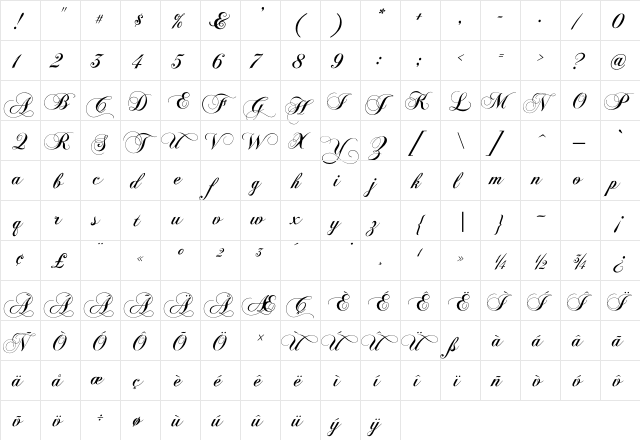
ChopinScript Medium
Design Context for ChopinScript Typeface
ChopinScript brings a calligraphic fluidity to the page — its connecting strokes and expressive curves give it an unmistakably human quality.
Font Pairing: Combine ChopinScript with a simple geometric sans for maximum contrast — the tension between flowing curves and clean structure is a classic typographic pairing.
Pro Tip: Pair ChopinScript with a clean sans-serif for supporting text. The contrast between fluid script and geometric structure creates an elegant typographic hierarchy.